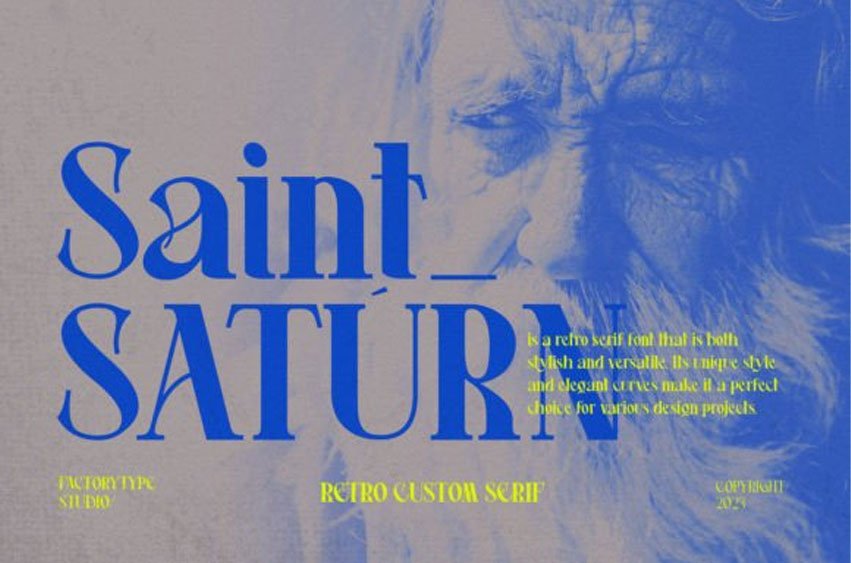
Saint Saturn Font Are you looking for a new font to add to your collection? Look no further than Saint Saturn, a retro serif font that is both stylish and versatile.
Whether you’re designing a logo, creating a website, or working on a print project, this font has the potential to elevate your work to the next level. Keep reading to learn more about the features that make St Saturn unique and how to use it effectively.